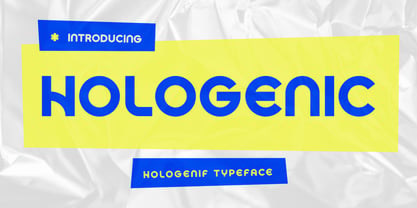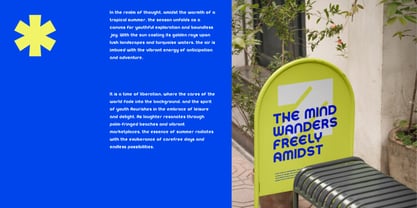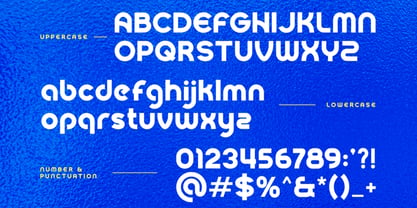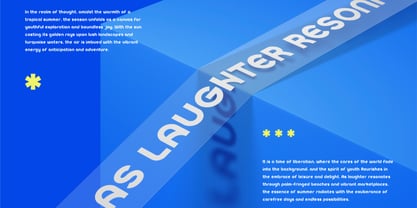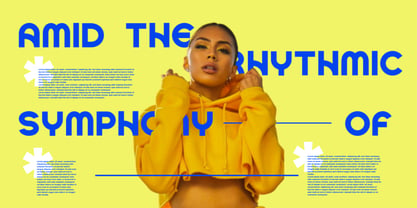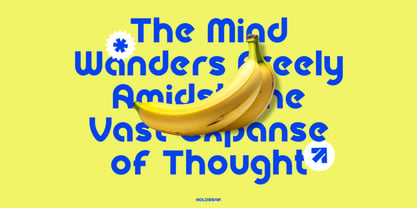
Hologenic
Hologenif is a bold and futuristic sans serif display font that combines geometric shapes with retro sci-fi energy. Featuring clean letterforms, rounded terminals, and unique curves, this typeface is perfect for attention-grabbing visuals. It includes uppercase, lowercase, numbers, and punctuation for versatile usage across branding. Hologenif is ideal for projects that need a punch of personality and futuristic flair. Its bold geometry and sci-fi inspired design make it perfect for tech startups, gaming covers, music visuals, fashion lookbooks, or youth-centric branding.